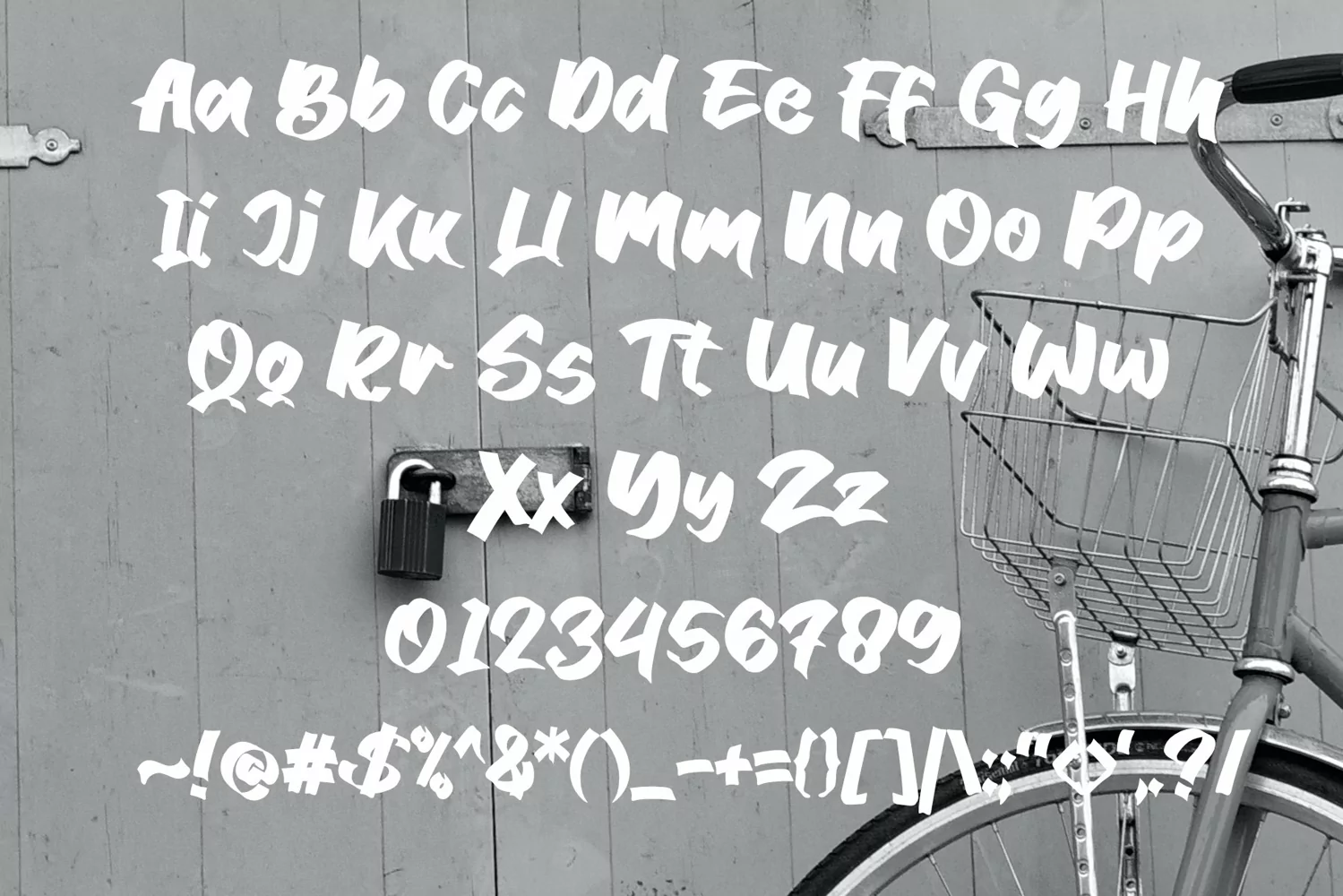
**Melvines Font**
This pair was inspired by the Vintage poster design that i saw on some coffee shop, It was crafted by hand specially to add natural handmade feeling in its brand identity than i make it clean with pentool.
Melvines font has 173 character set included
Melvines Font is very good looking in logo, labels, product packaging, invitations, advertising and others.